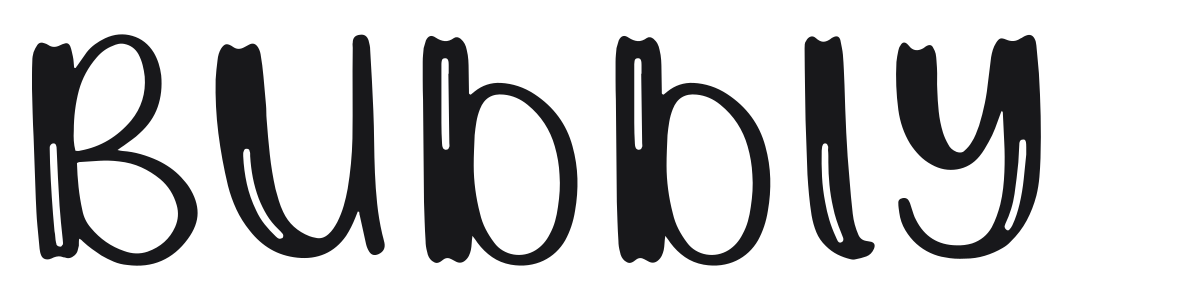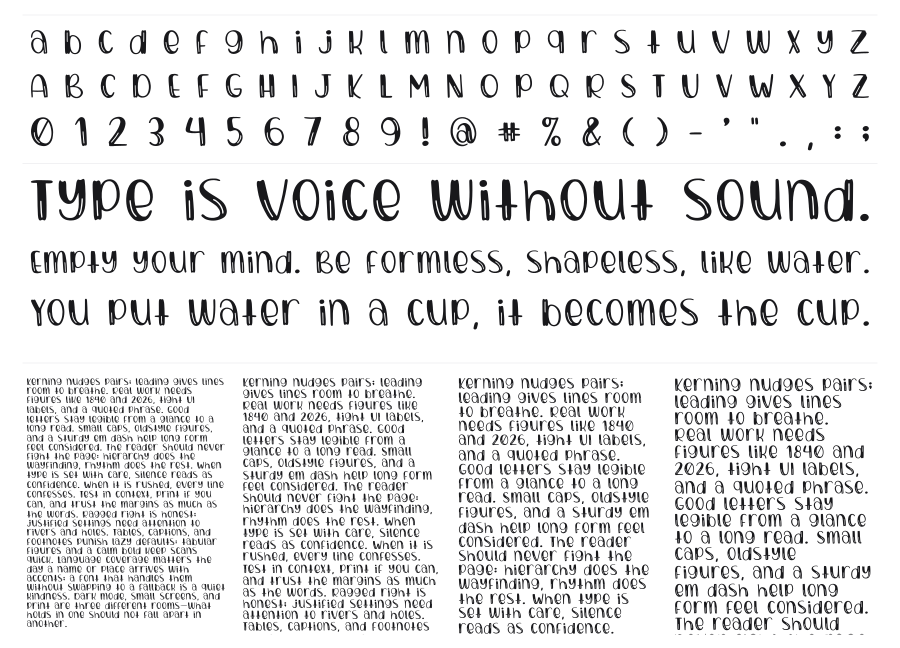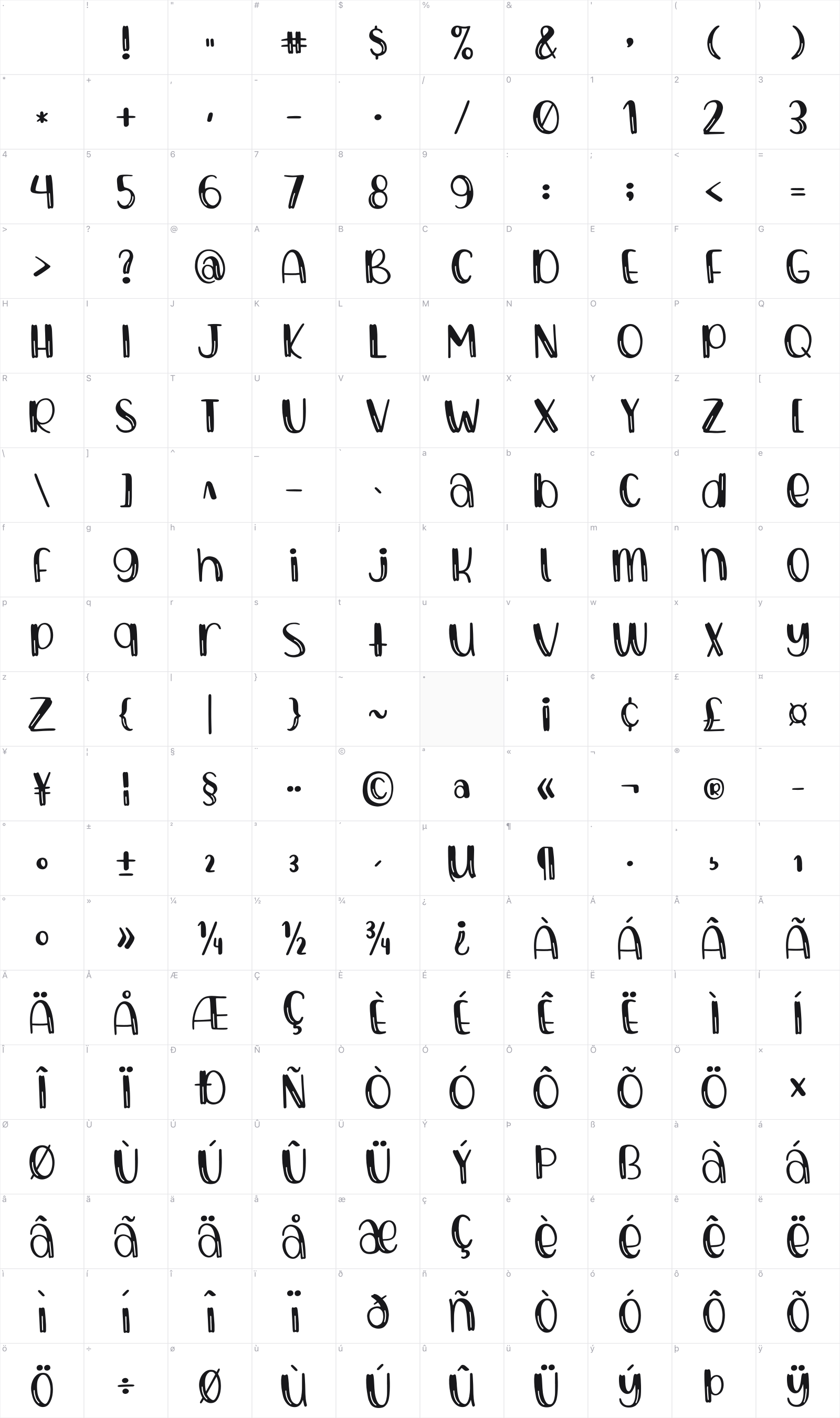
Bubbly
Bubbly is an upright handwritten display font by Emylia Maratta with thick, slightly wobbly strokes that look drawn with a chunky marker. The irregular baseline and rough edges give it an authentic hand-lettered quality without feeling sloppy. It brings warmth and a lighthearted energy to packaging, titles, and branding that calls for a personal touch.